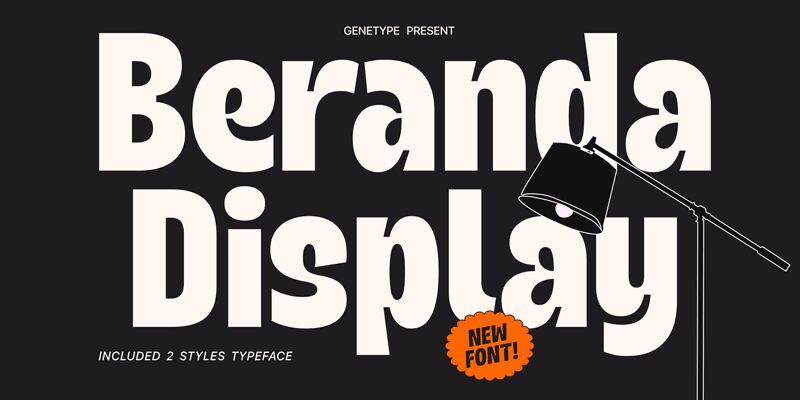
Beranda font family designed by Genetypeco fuses modernist aspects with a strong presence. The free sans serif font exhibits retro vibes while being built on geometric influences. Its impactful design doesn't take away from its contemporary relevance, which makes it the suitable choice in any branding setting.